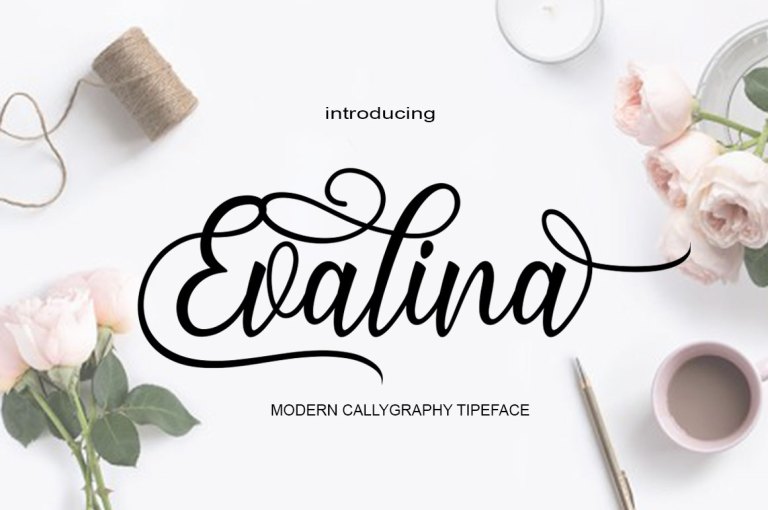
Evalina Font
Please note that Evalina Font must be purchased for commercial use. You are welcome to download and test this font for personal and non-commercial projects at no cost. This graceful, flowing script typeface is perfect for a wide range of feminine and sophisticated design applications, including bespoke wedding invitations and stationery, high-end product packaging, elegant logo designs, feminine magazine headers, luxurious home-ware designs, and stylish text overlays for social media images that require a touch of romantic charm.
The reason Evalina Font is genuinely exciting is its beautiful, effortless flow and its wealth of stylistic options. It exudes an air of timeless elegance and charm, often featuring unique elements like heart-shaped alternates and finely crafted ligatures that add a romantic, artistic flourish to every word. This sophisticated yet approachable quality ensures your design feels both professional and deeply personal, making it a standout choice for brands that prioritize a refined, handcrafted aesthetic.
The Evalina Font family primarily offers a single, signature script style (Regular), as the complexity and variety come from its numerous OpenType features. These features are extensive, allowing designers to access special ligatures, swashes, and a rich collection of alternate characters to fully customize the handwritten look. For a font that adds an immediate sense of elegance and bespoke artistry to your project, secure your Evalina Font Free Download today.